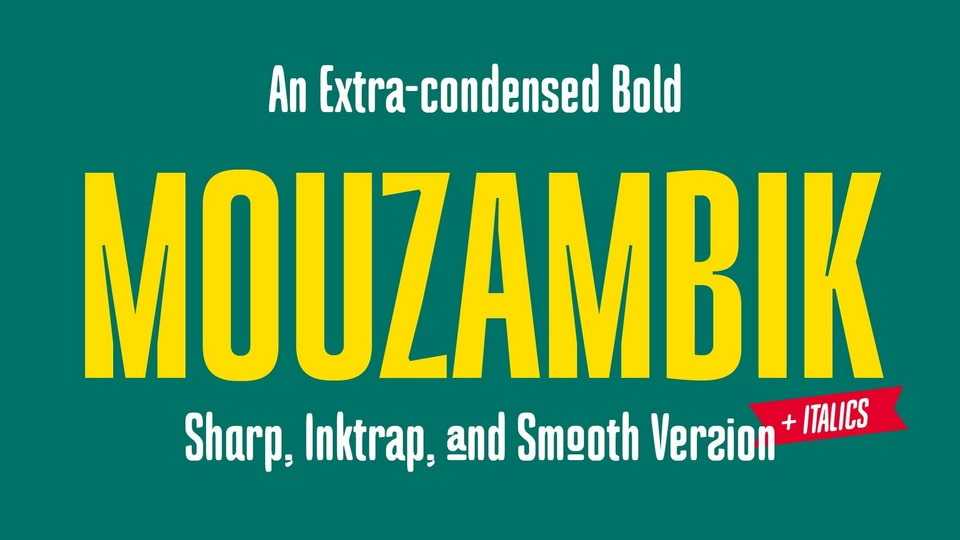
Download Mouzambik font, a simple, condensed sans serif typeface with a bold and complex personality. Mouzambik was purposely crafted to be used in large point sizes, although it doesn’t lose its magic in small point sizes.